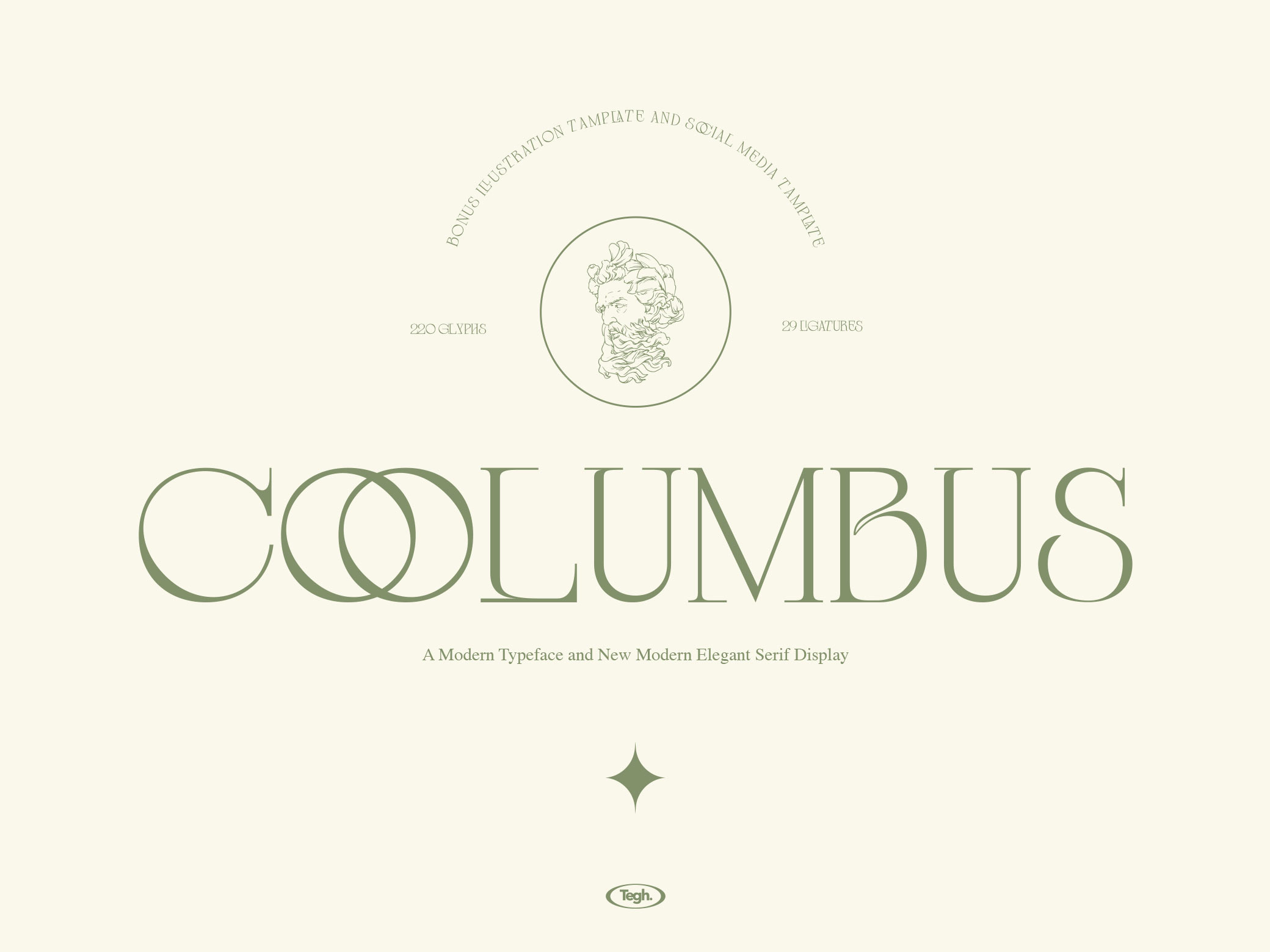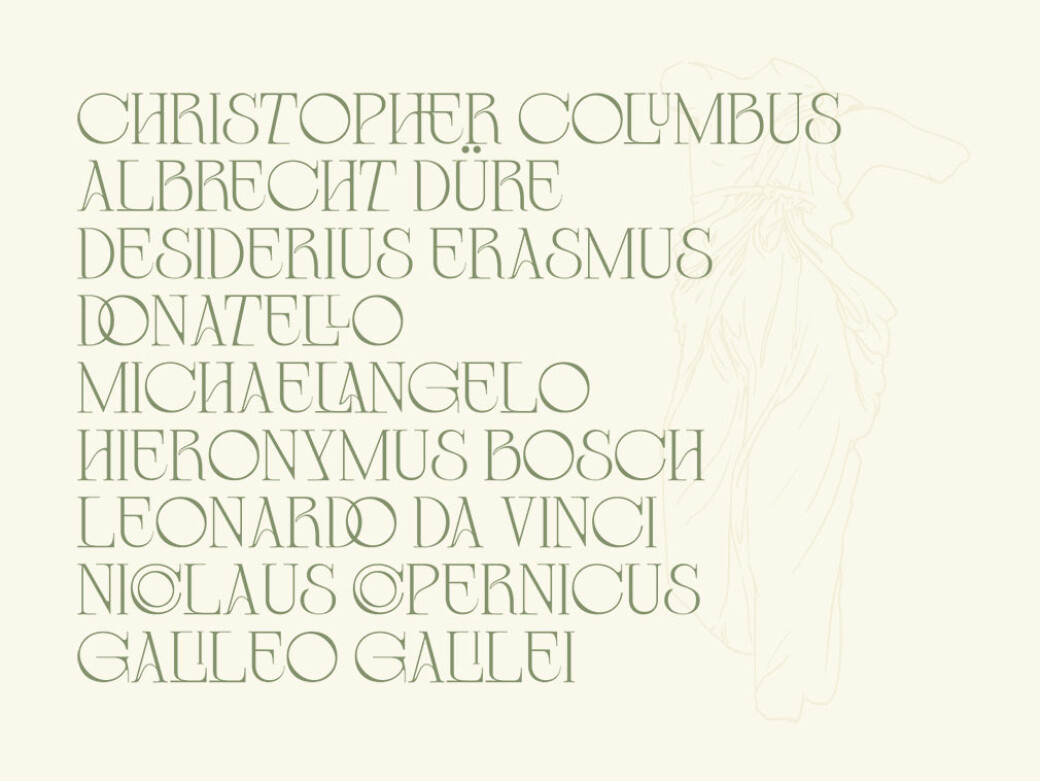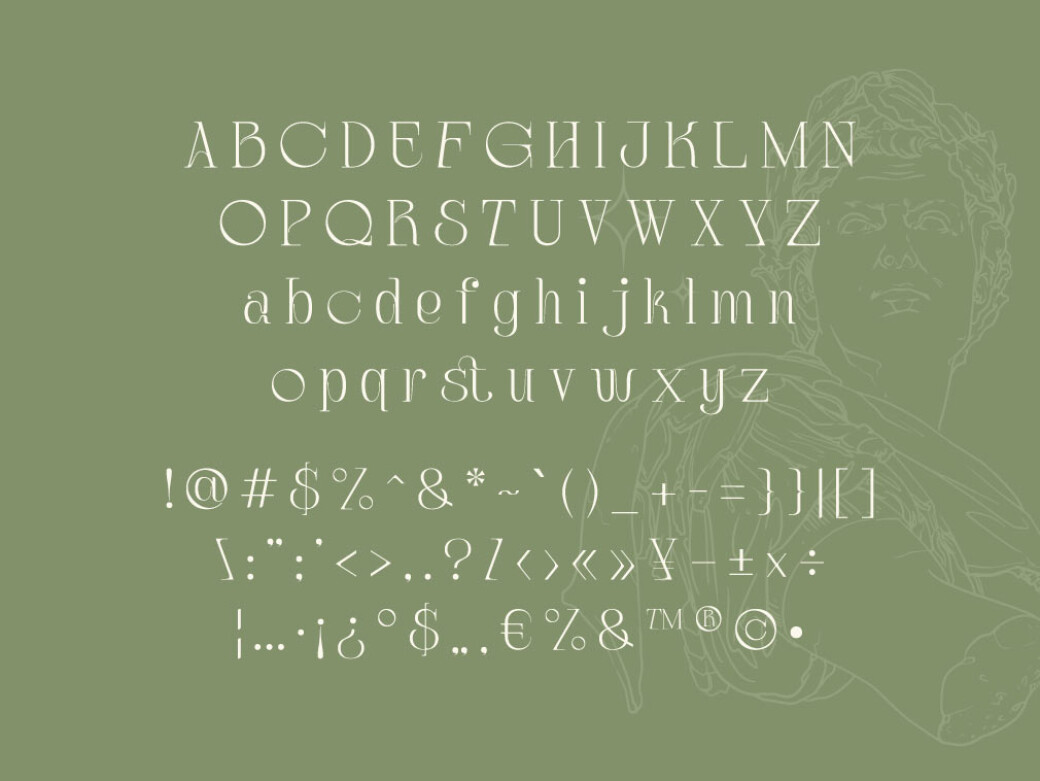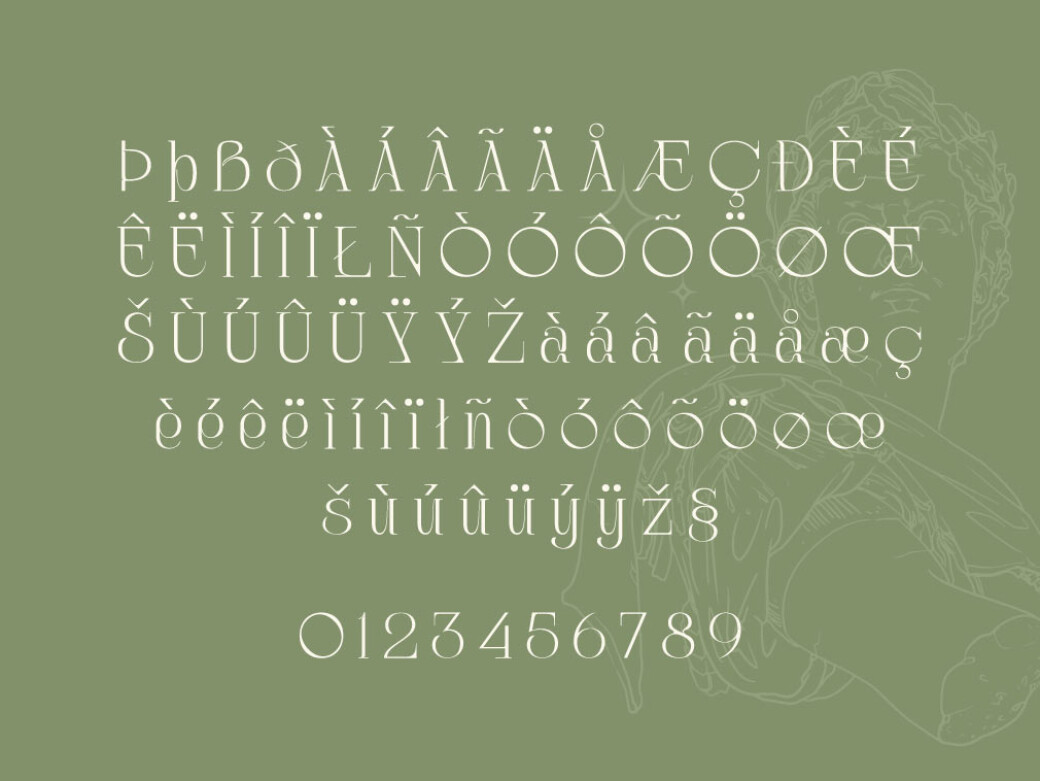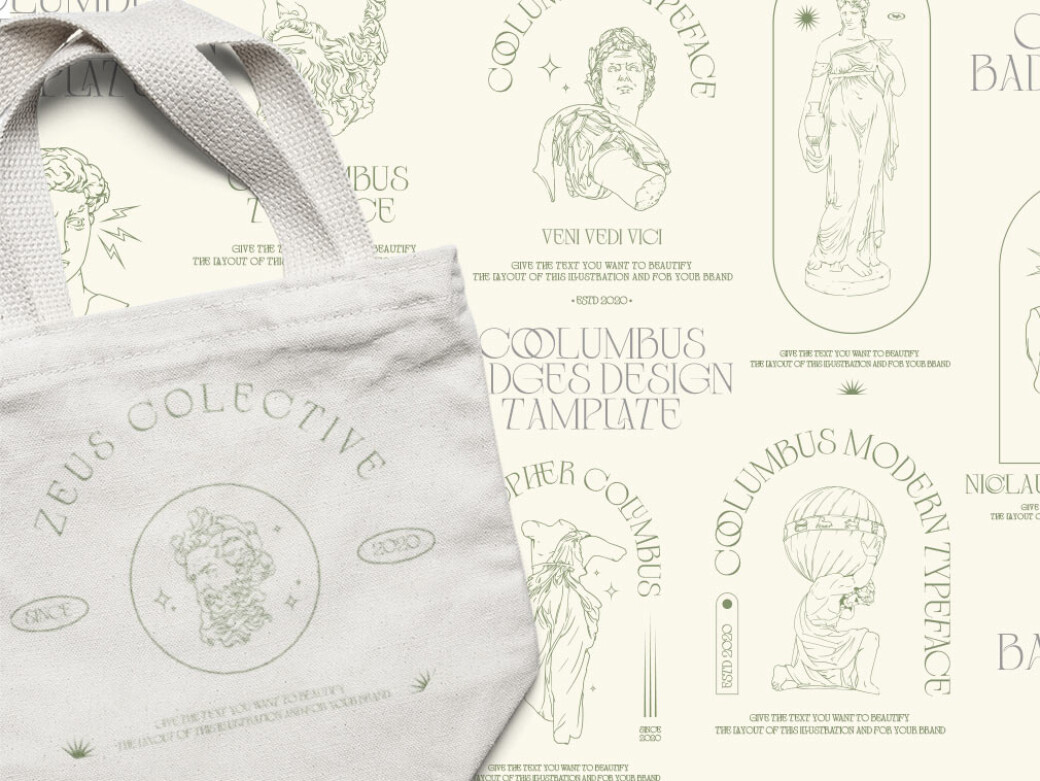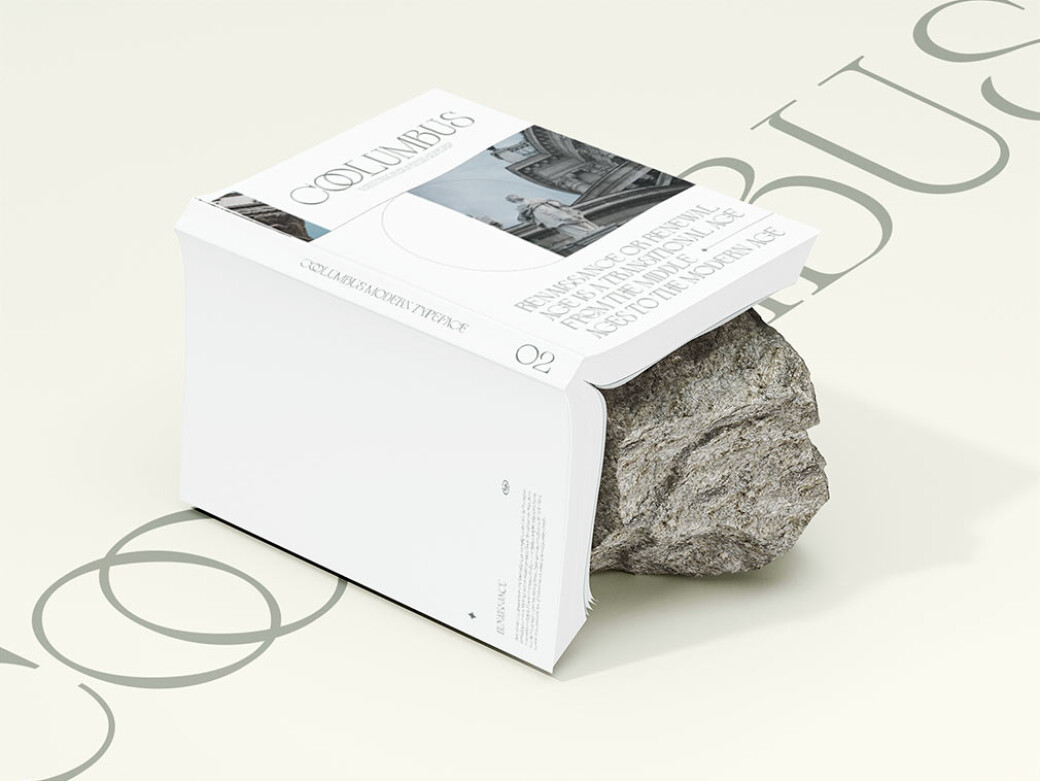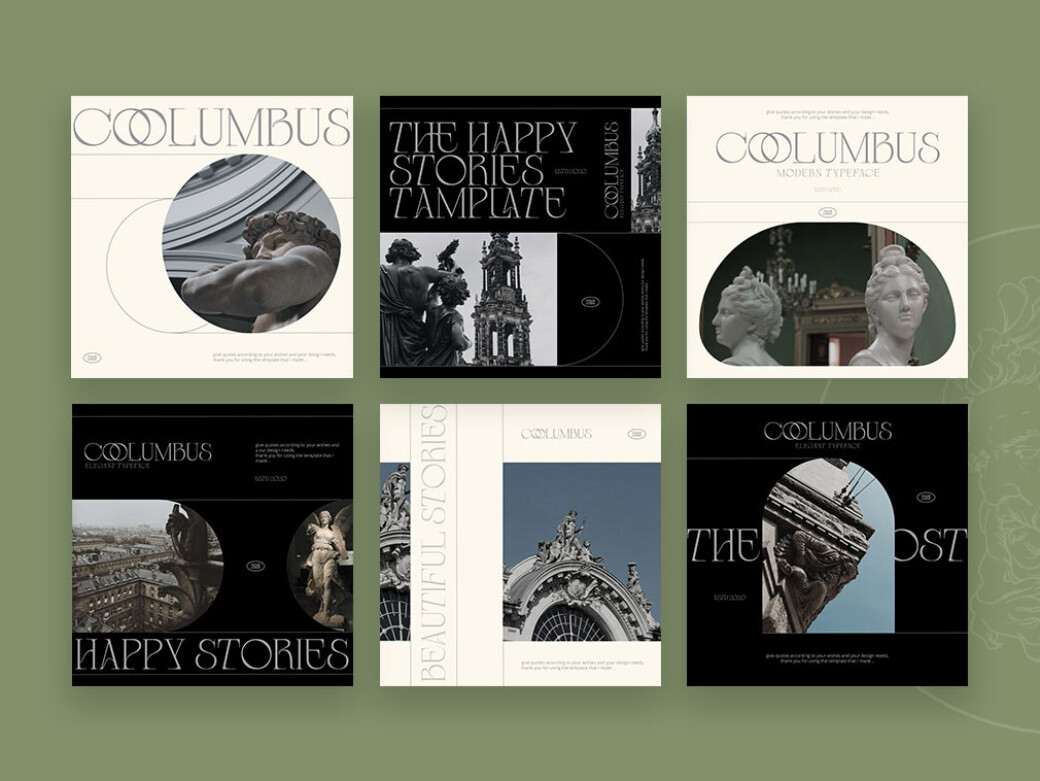
Coolumbus Serif Font
Welcome a smart display serif font, comprising the fragments of monumental Greek-like typography with modernistic curves and unexpected bends. Bonus Instagram templates will be a nice surprise!Veni, vidi, got amazed! The artistic Coolumbus typeface is pure elegance, wrapped in antique classical imagery, following each terse character in the collection. The set features 220 glyphs and 29 ligatures to build up the monumental messages, craft headlines and carry out inspirational mottos. With the bonus of 6 Instagram templates for posts/stories, and themed illustrations, you can easily achieve the idea you've been toying for days!